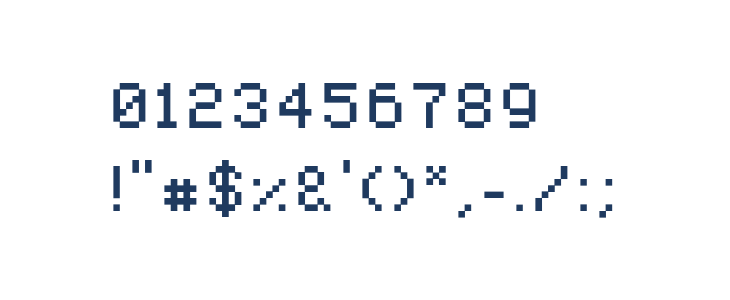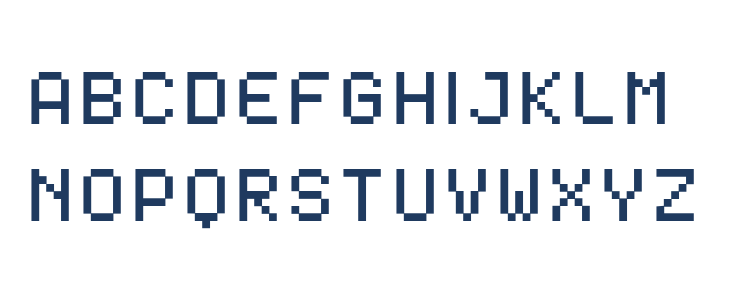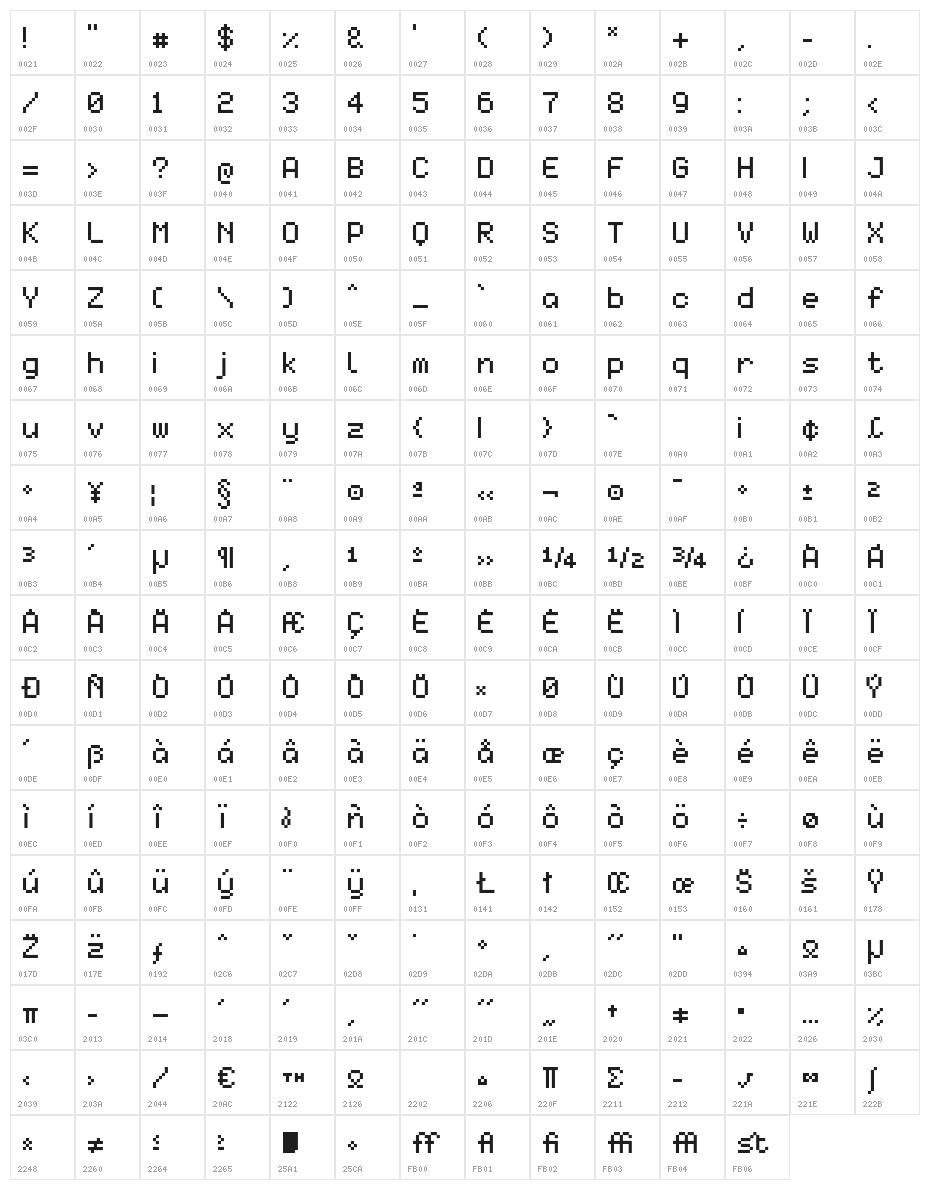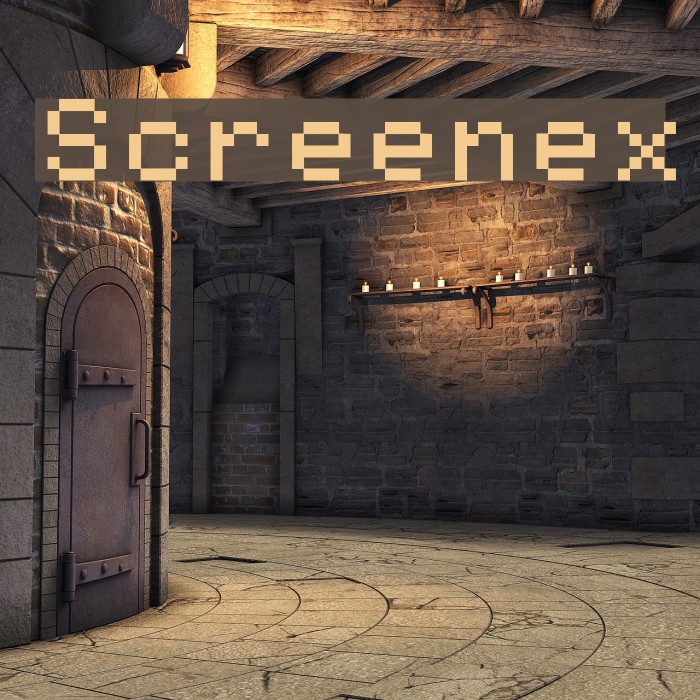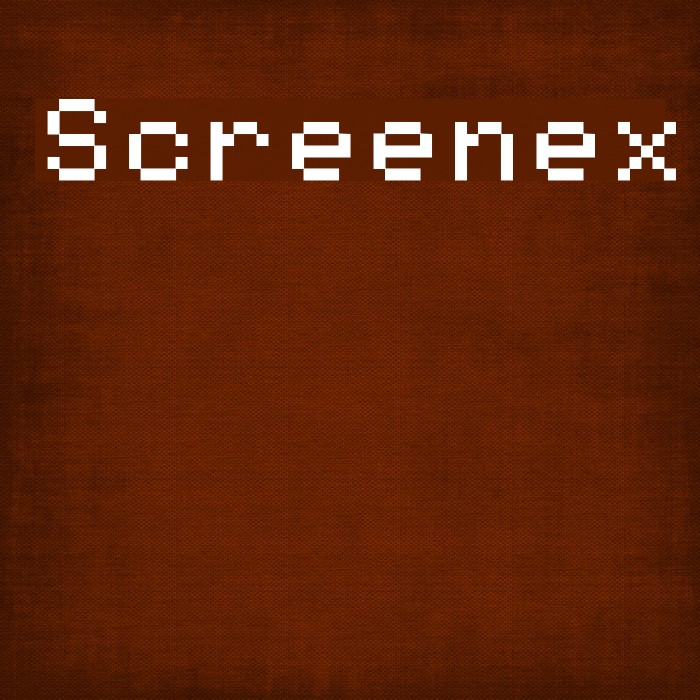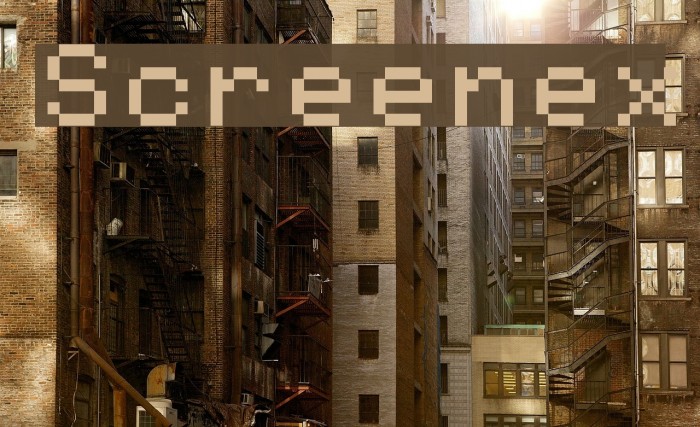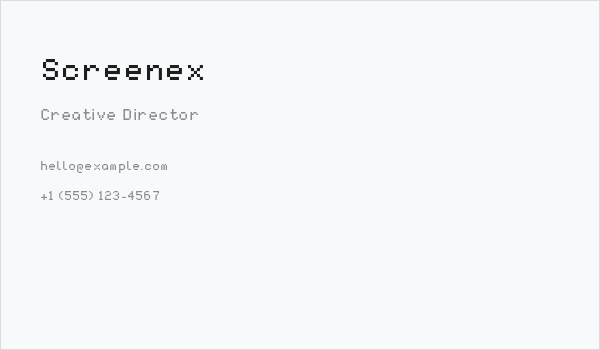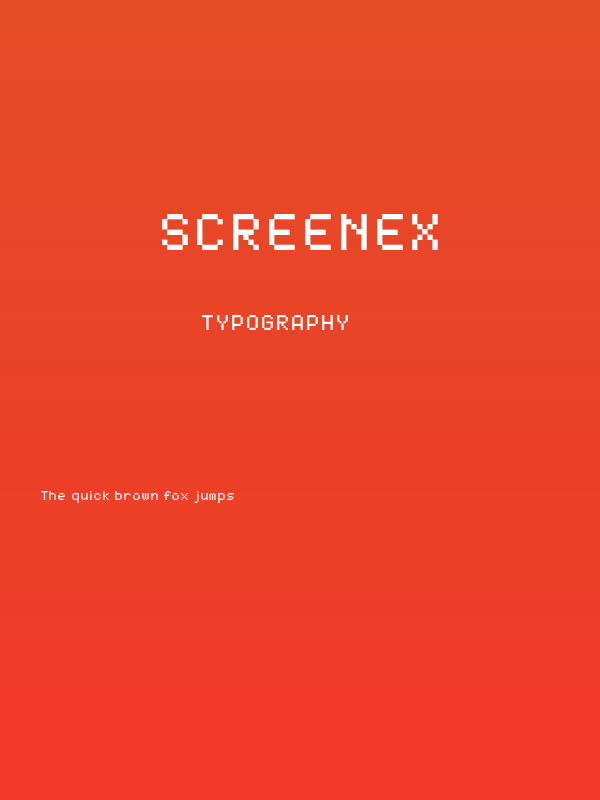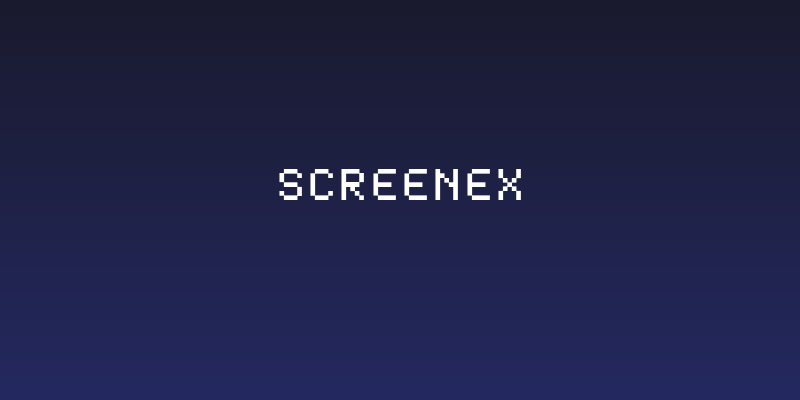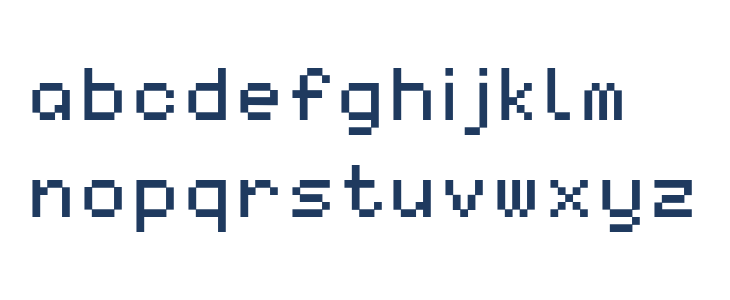
Screenex Font
Screenex Description
This font features a pixelated, blocky design reminiscent of early digital displays and video games. Each character is constructed with a grid-like precision, giving it a distinctly retro and technological feel. The uppercase and lowercase letters maintain a consistent height, contributing to a uniform appearance. The numbers and special characters follow the same pixelated style, ensuring cohesion across all elements. This font's simplicity and clarity make it highly legible, even at smaller sizes, while its unique style adds a nostalgic touch to any design.
| Overall Style | Retro, Digital |
| Use Case | Headlines, Logos, Digital displays |
| Proposed Projects | Ideal for retro video game designs, tech-themed posters, digital art projects, and any creative work seeking a nostalgic or digital look. |